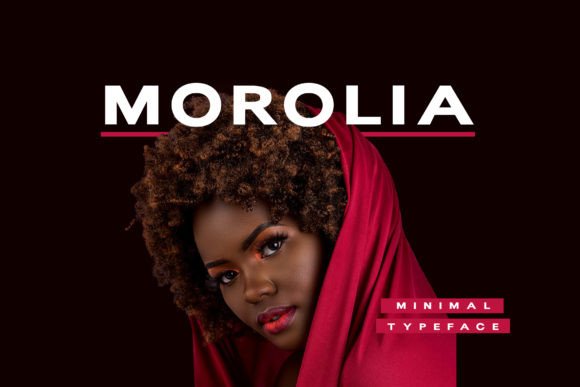
Introducing Morolia Font, the epitome of modern elegance in the world of display fonts! Created by the talented team at Webhance, this font is specifically designed to captivate and inspire. Let's dive into the captivating details of this extraordinary typeface.
Morolia Font stands out from the crowd with its unique and stylish letterforms. The tall and thick letters exude confidence, making a bold statement in any project. Whether you're designing a magazine, creating a captivating headline, or crafting eye-catching posters, Morolia Font will elevate your design to new heights.
One of the most remarkable aspects of Morolia Font is its minimalist and clean design. Every curve and line has been meticulously crafted to ensure a visually pleasing experience for your audience. The simplicity of the font allows it to seamlessly blend with any branding strategy, giving your business a touch of sophistication and professionalism.
Versatility is the name of the game with Morolia Font. Not only does it come in uppercase, but it also includes numbers and punctuation marks. This means you have endless possibilities for designing logos, advertisements, social media graphics, and more. The font effortlessly adapts to your creative vision, making it a must-have tool for every designer.
But Morolia Font is not just about aesthetics; it's about evoking emotions and leaving a lasting impression. With its elegant and refined appearance, this font adds a touch of class and sophistication to your work. It creates a sense of trust and credibility, compelling your audience to take notice and engage with your content.
Imagine the impact Morolia Font will have on your next project. It's the perfect choice for those who want to stand out from the crowd and make a bold statement. With its eye-catching appeal and versatility, this font will effortlessly elevate your designs and leave a lasting impression on your audience.